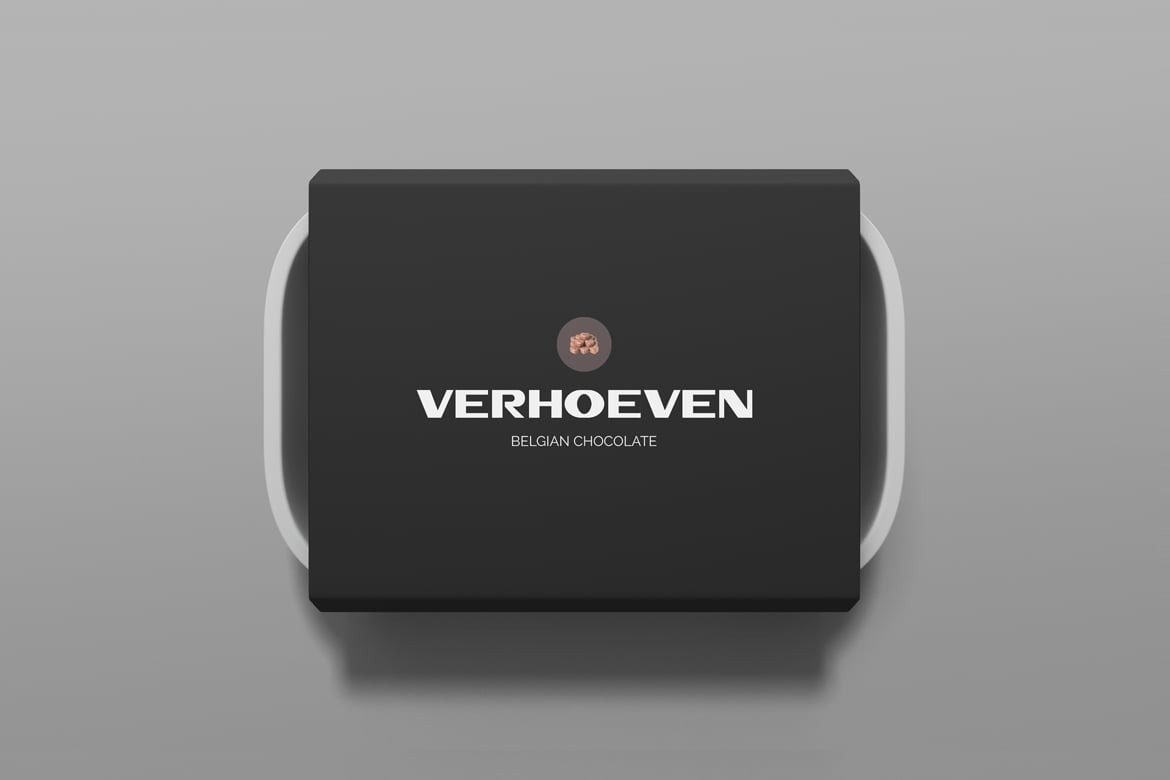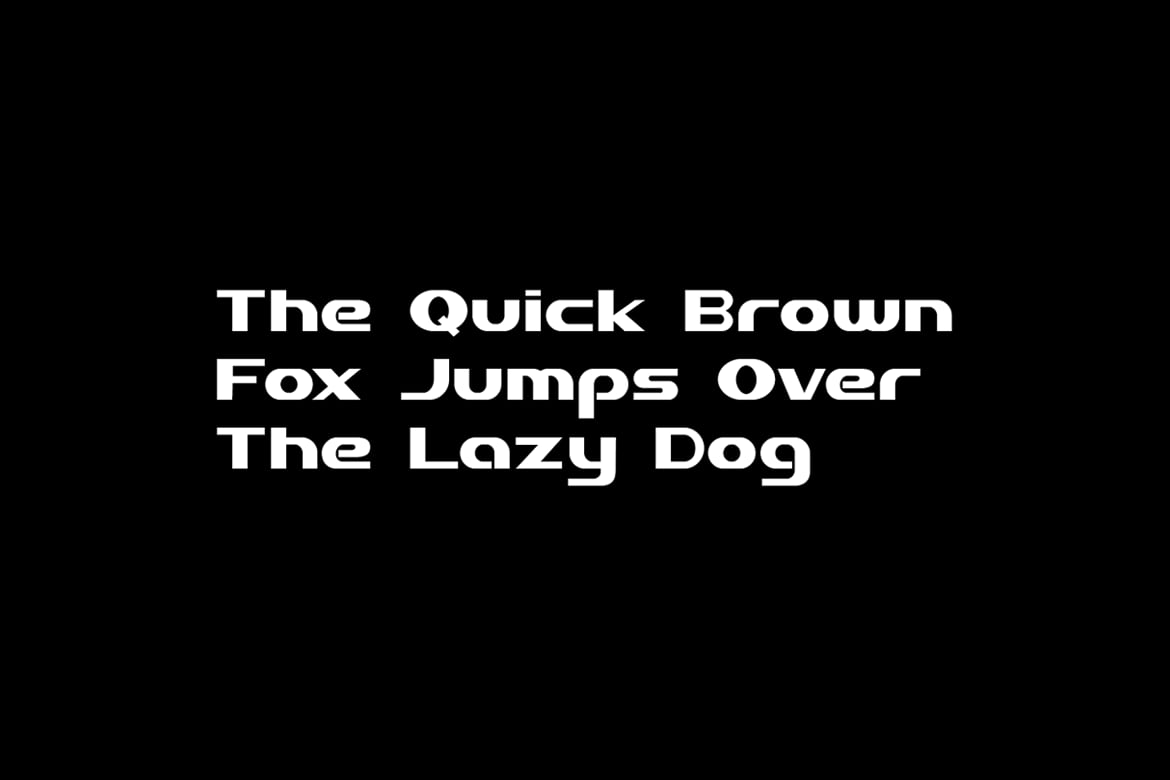
TAHOE – Unique Display Typeface Font is a versatile typeface ideal for various projects, including Sans-Serif, logos, branding, posters, blog headers, advertisements. The free version includes a full set of uppercase and lowercase letters, available in OTF, TTF, EOT, SVG, WOFF, WOFF2 format.
TAHOE – Unique Display Typeface Font